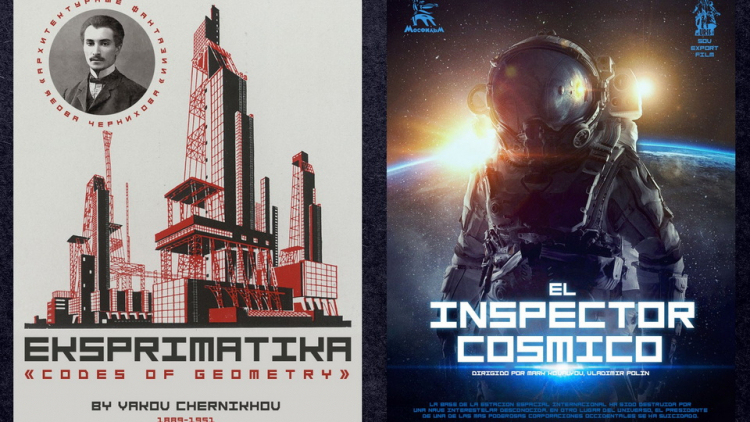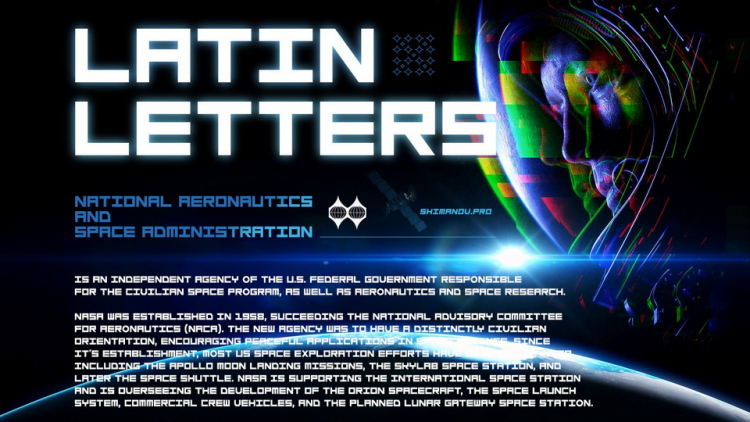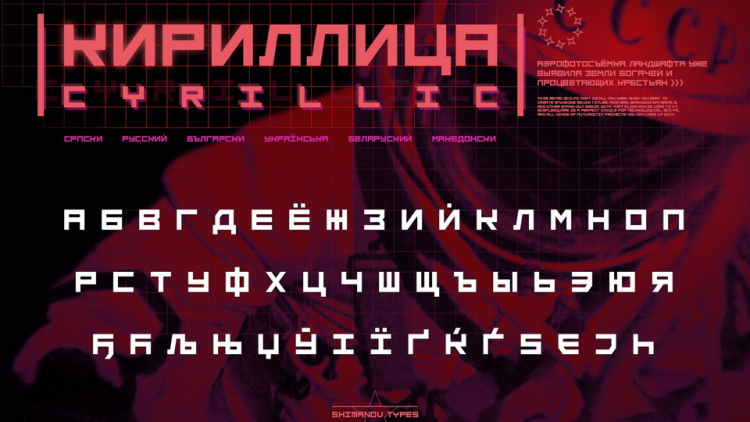
Simple Square Display Font
This is a simple square geometry based font with unique shape that will make your design looks hi-tech and modern. Probably with the constructivism architectural touch. Small caps only. As it is simple font it’s includes just basic punctuations and symbols.